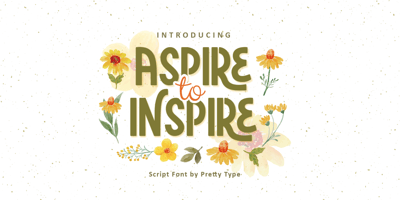
Aspire to Inspire
Aspire to Inspire font
Aspire to Inspire Font Family was designed by Miftahul Habib and published by Tlatous Type. Aspire to Inspire contains 1 styles and family package options. Introducing Aspire to Inspire Font by TlatoustypeAspire to Inspire is a cursive display Font. This font is perfect for book cover, product packaging, branding project, megazine, social media, wedding, or just used to express words above the background.This font includes TTF and OTF, This font also multilingual support.